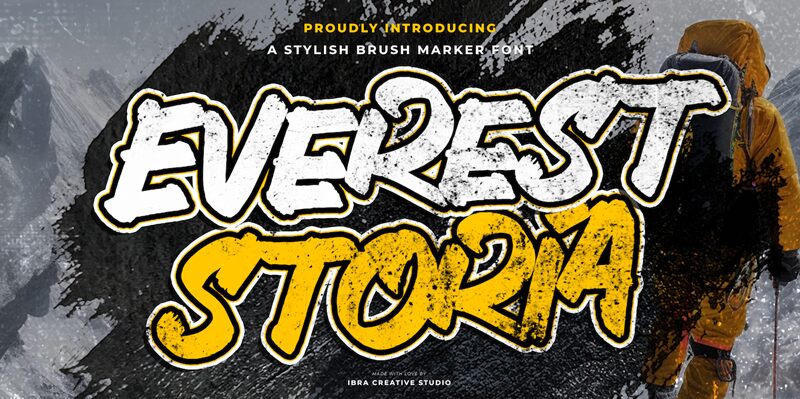
Everestoria font by Ibra Creative Studio offers a bold brush style that captures attention with its dynamic and artistic flair. This free font evokes creativity, making it perfect for projects seeking a handmade, authentic feel. Its strikingly bold nature highlights designs across various media, delivering a powerful visual impact.
Ideal for branding, merchandise, and digital content, Everestoria stands out with its expressive strokes. Whether you're crafting eye-catching headlines or designing vibrant posters, this font ensures your message is compelling and memorable.